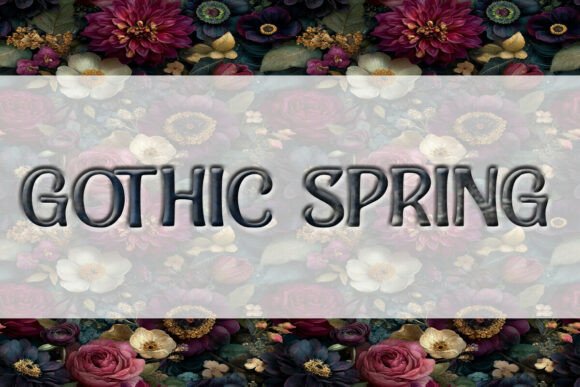
Unveil the Timeless Allure of Gothic Spring Font
Are you ready to elevate your designs with a touch of classic elegance and modern flair? Look no further than the Gothic Spring Font, a dynamic typeface that embodies the perfect blend of traditional and contemporary style. This versatile font is designed to add a distinct charisma to various creative projects, from t-shirts and decals to personal brands and greeting cards.
The Versatility of Gothic Spring Font
One of the standout features of Gothic Spring Font is its incredible versatility. Whether you’re working on a magazine layout, creating SVG files, or designing greeting cards, this font is sure to make a lasting impression. Its unique blend of classic and modern elements allows it to seamlessly adapt to various design styles, making it an excellent addition to any designer’s toolkit.
Elevate Your Cricut Projects with Gothic Spring
Cricut enthusiasts, rejoice! Gothic Spring Font is the perfect companion for your cutting machine projects. Add a touch of sophistication and whimsy to your Cricut creations with this eye-catching typeface. From custom vinyl decals to intricate paper crafts, Gothic Spring Font is sure to take your designs to the next level.
Make a Statement with Gothic Spring on Posters and Social Media
Want to make a bold statement on your posters or social media platforms? Gothic Spring Font is the perfect solution. Its distinctive charm and character are sure to grab attention and leave a lasting impression on your audience. Whether you’re promoting a business, event, or cause, this font is designed to help you communicate your message with style and impact.
Transform Your Designs with Gothic Spring
Gothic Spring Font is more than just a typeface – it’s a transformation for your designs. With its unique blend of classic and modern elements, this font has the power to elevate your creations and help you communicate more effectively. Whether you’re working in print or digital, Gothic Spring Font is the perfect tool to add a touch of personality and whimsy to your designs.
The Benefits of Using Gothic Spring Font
So, what sets Gothic Spring Font apart from other typefaces? Here are just a few benefits of using this dynamic font in your designs:
- Versatility: Gothic Spring Font is designed to work seamlessly across various design styles and applications.
- Unique Charm: This font boasts a distinctive charm and character that’s sure to grab attention.
- Classic and Modern: Gothic Spring Font combines the best of both worlds, blending classic elegance with modern flair.
- Ease of Use: This font is easy to read and works well in both large and small sizes.
Embracing the Eccentricity of Gothic Spring Font
In a world of design sameness, Gothic Spring Font dares to be different. Its eccentricity is what sets it apart from other typefaces, making it the perfect choice for designers and crafters who want to add a touch of personality to their creations. So, don’t be afraid to embrace the uniqueness of Gothic Spring Font and make your designs speak volumes!
In conclusion, Gothic Spring Font is a game-changer for designers and crafters looking to elevate their creations with a touch of classic elegance and modern flair. Its versatility, unique charm, and ease of use make it the perfect addition to any design toolkit. So, why settle for ordinary when you can make a statement with Gothic Spring Font? Unveil the timeless allure of this dynamic typeface and transform your designs today!
- Gothic Spring Font is a dynamic typeface that combines classic and modern style.
- This font is versatile and works well across various design applications.
- Gothic Spring Font is perfect for Cricut projects, posters, social media, and greeting cards.
- This font is designed to add a touch of personality and whimsy to your designs.